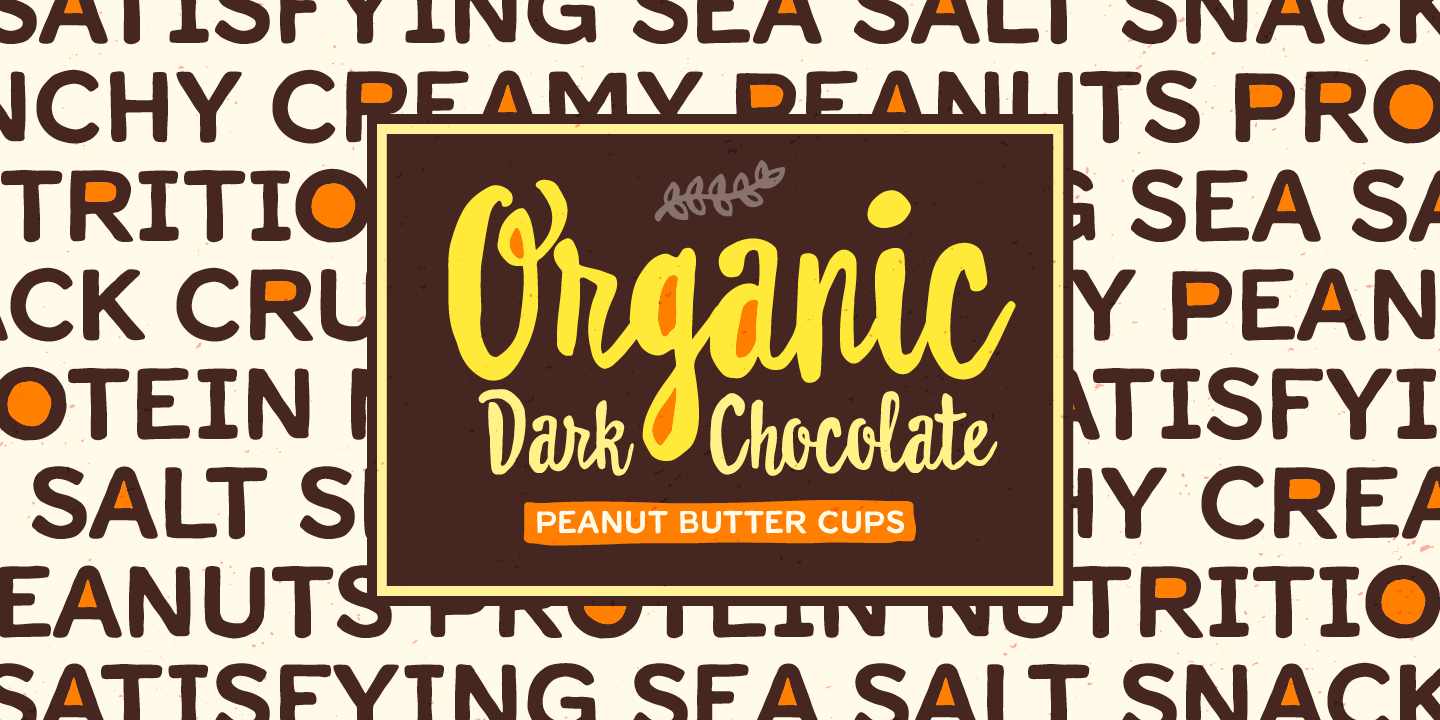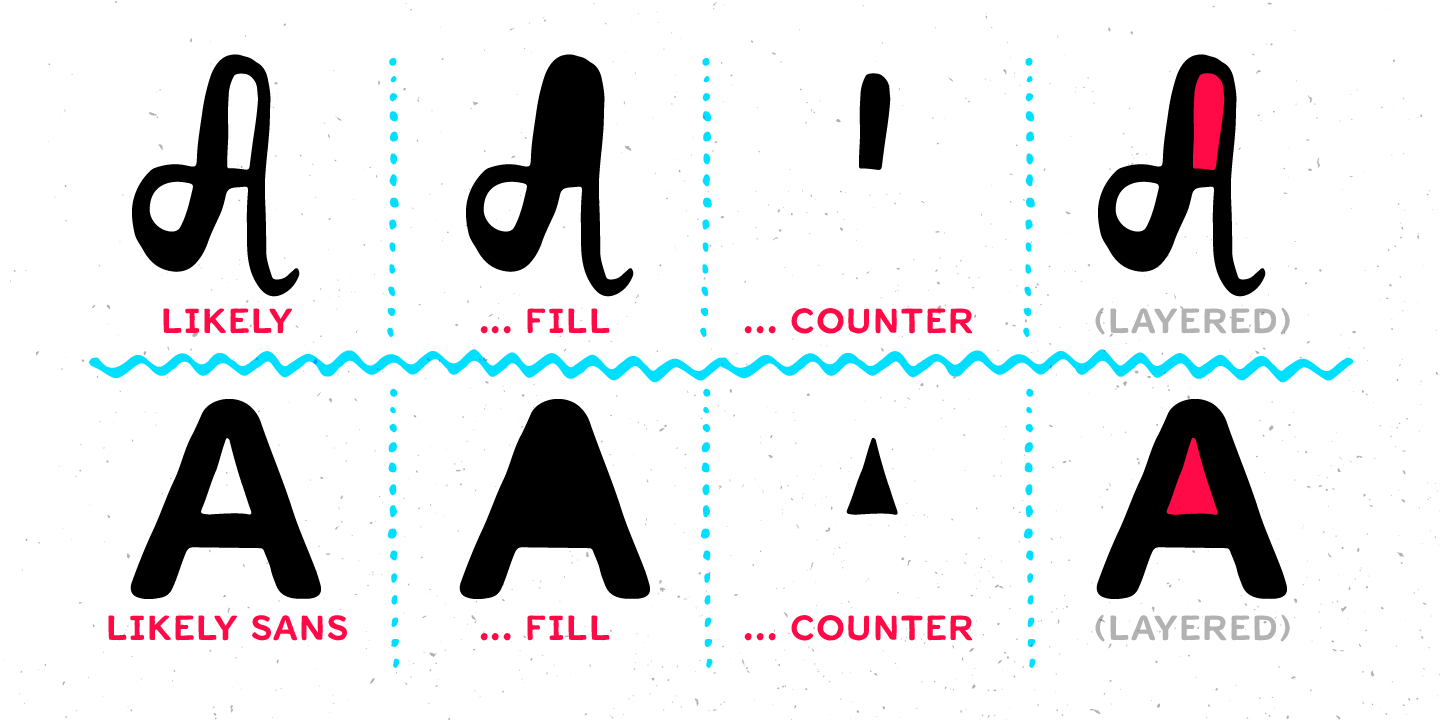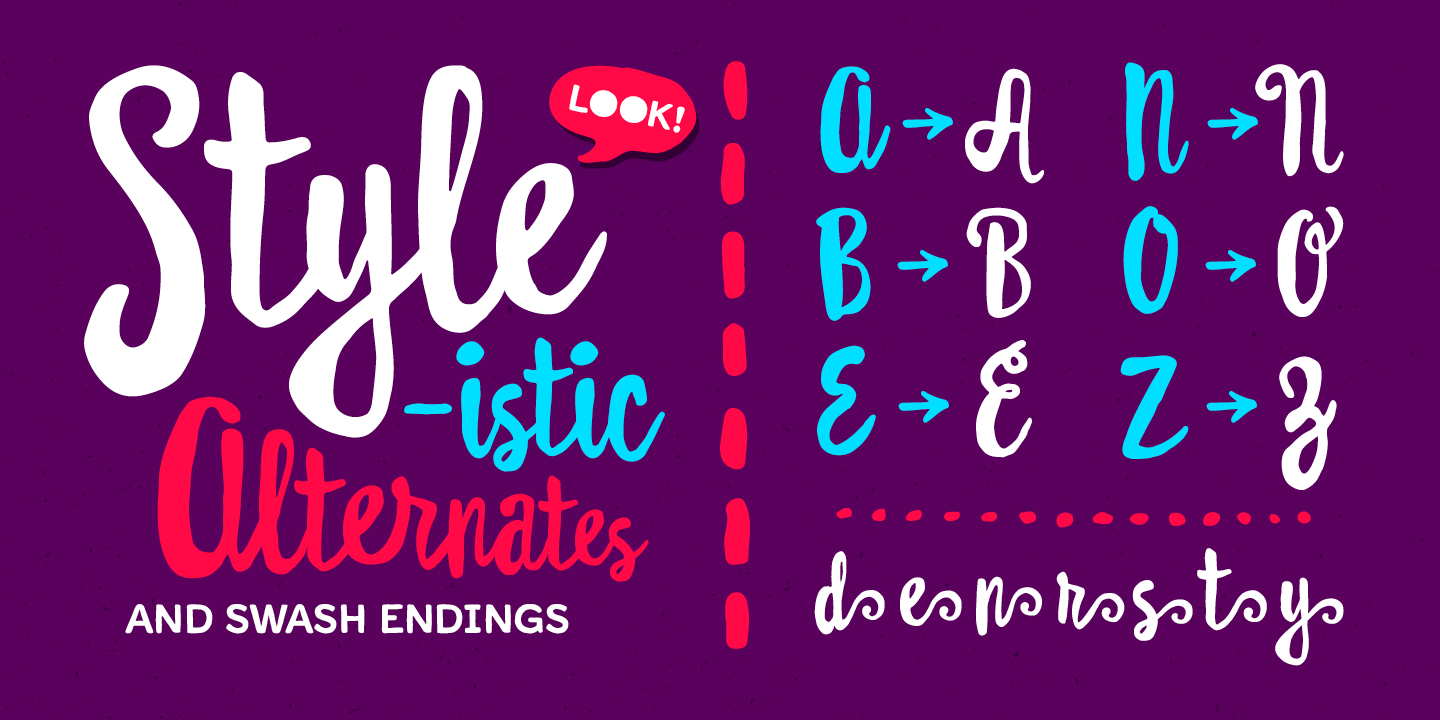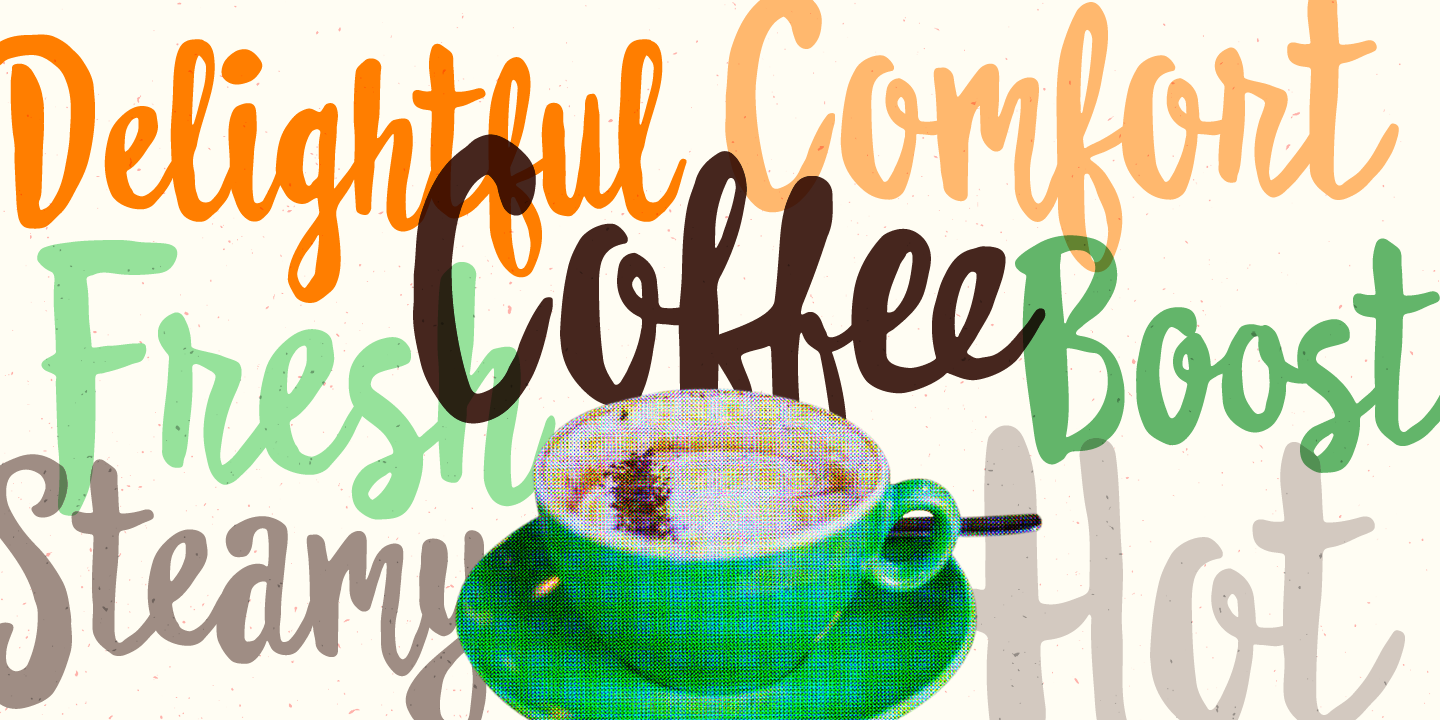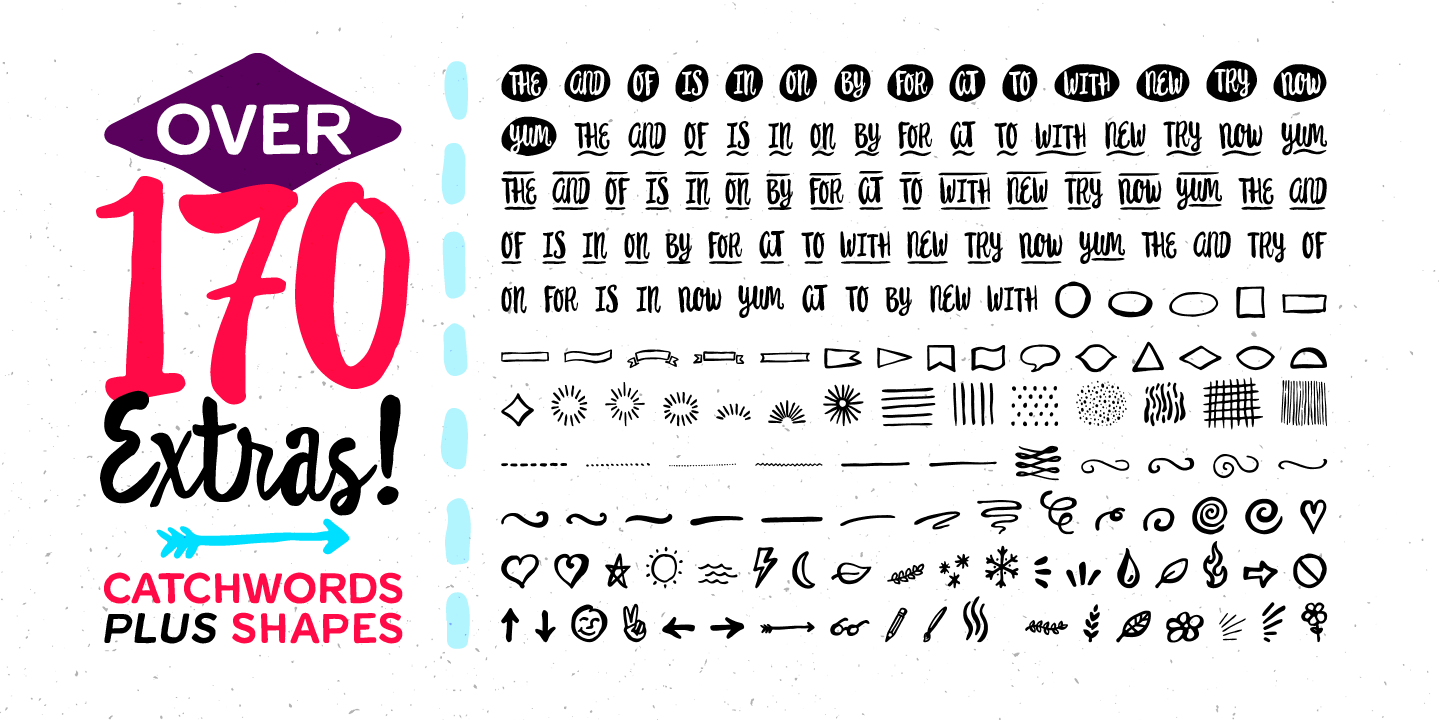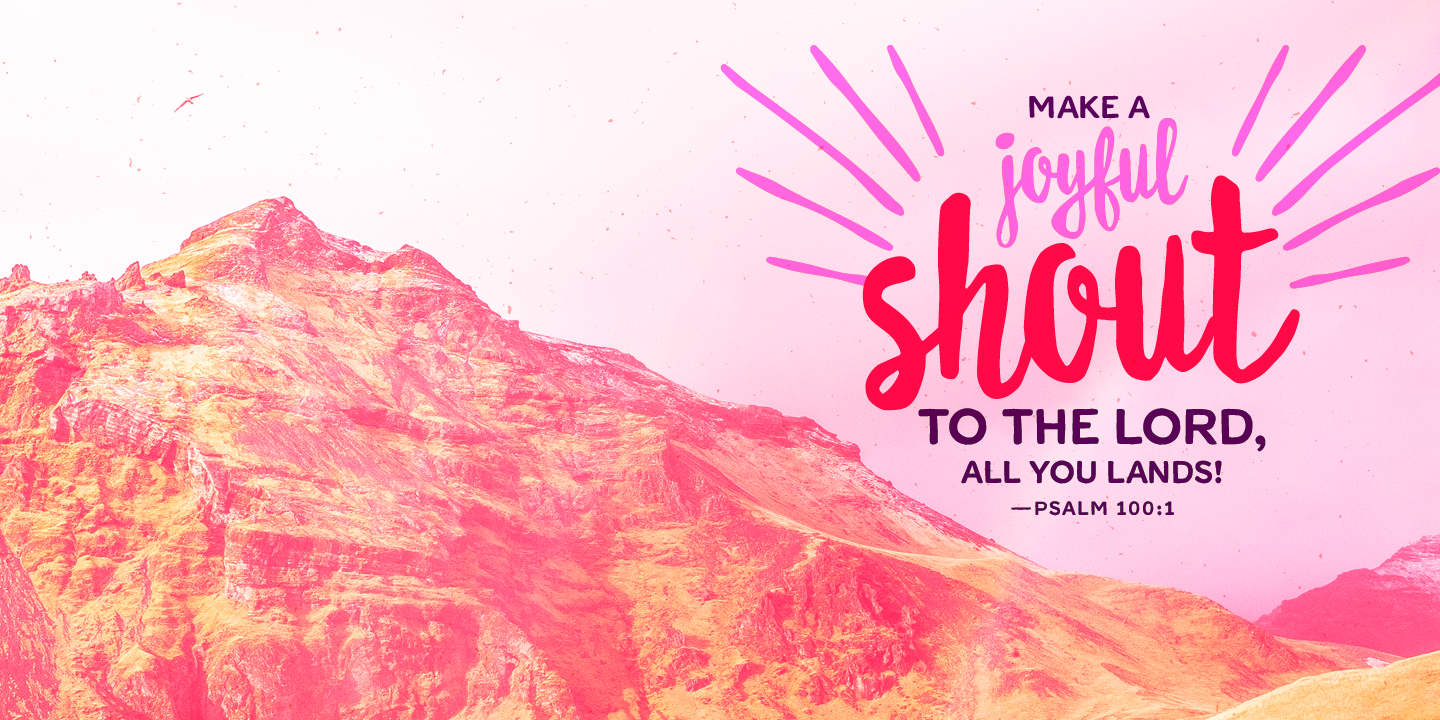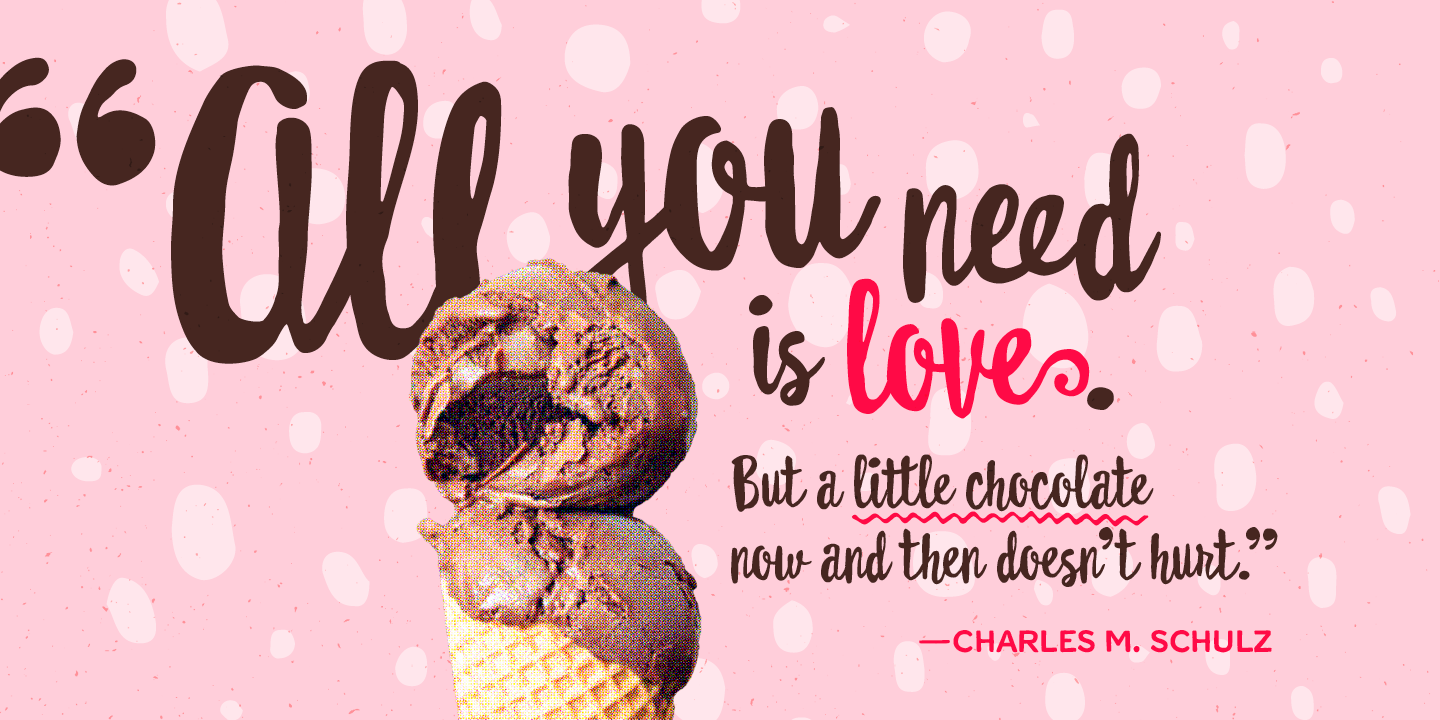
Likely is a joyful, brush script type family with complementary sans and extras styles. Hand drawn freely but carefully, each of the fonts are designed to work together to present a vibrant and natural package.
Layer and colorize the free “Counter” styles to easily enhance the color palette, or explore using the over 170 matching catchwords and shapes to make your designs even more fun!
Special features include ligatures, stylistic alternates, and swash endings for certain characters to add a little more rhythm and flair to your type.